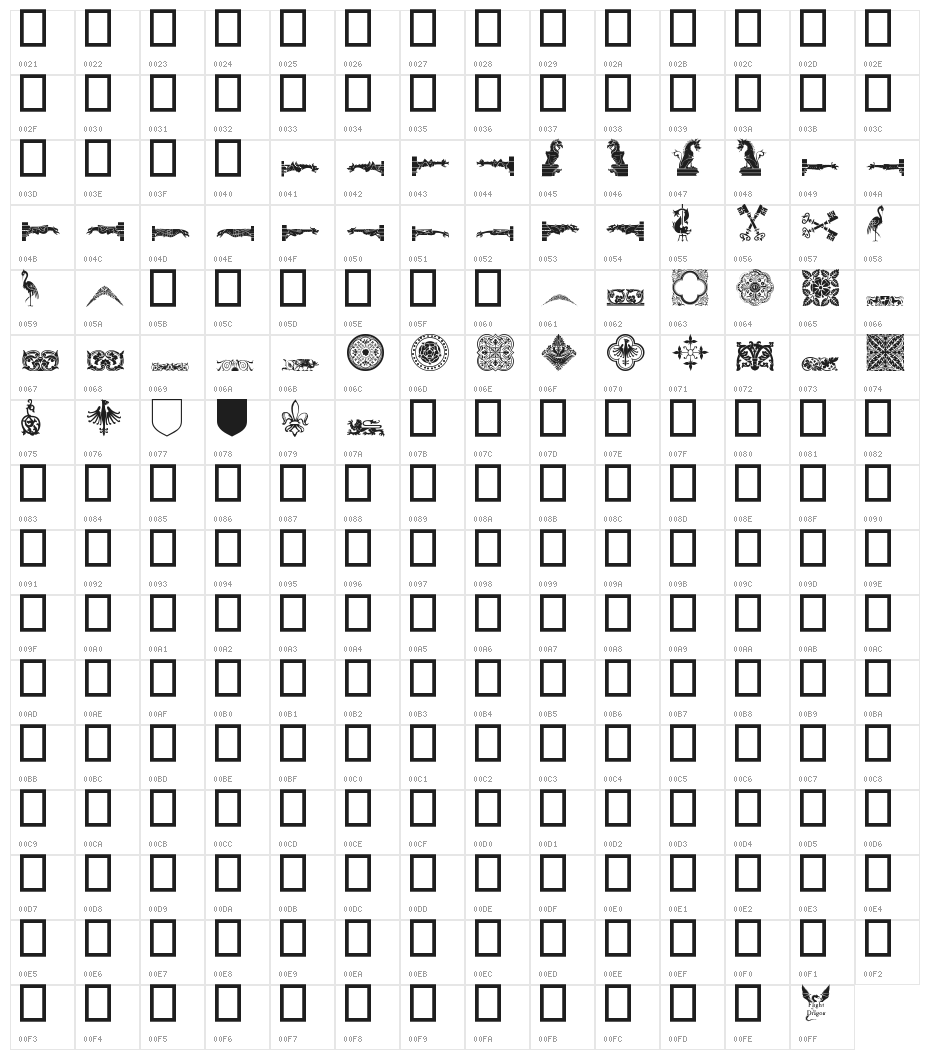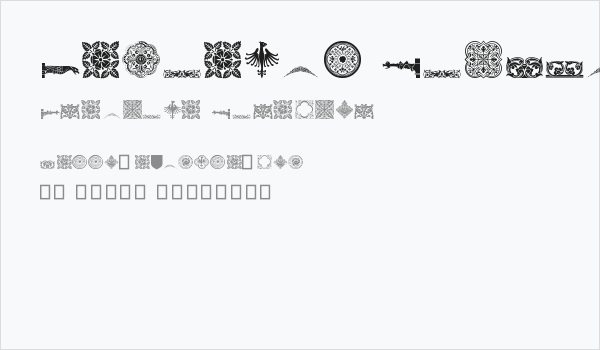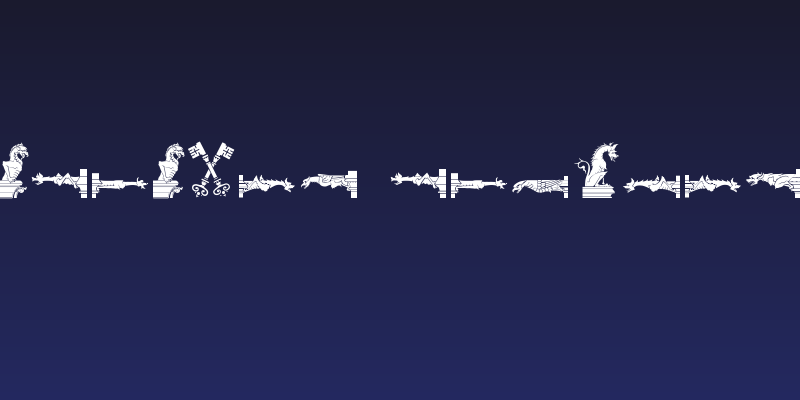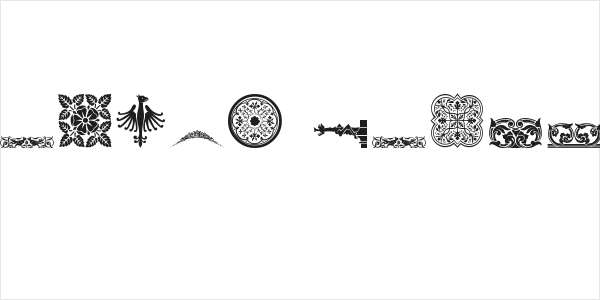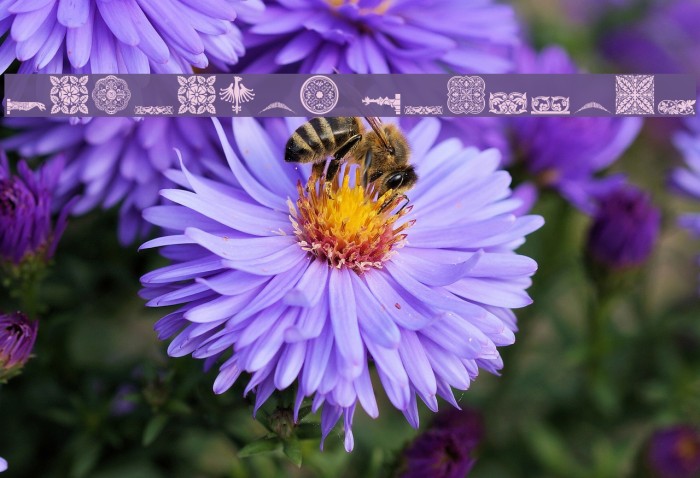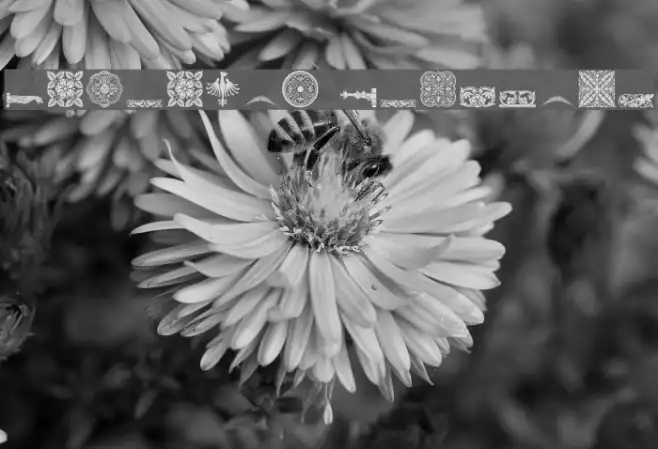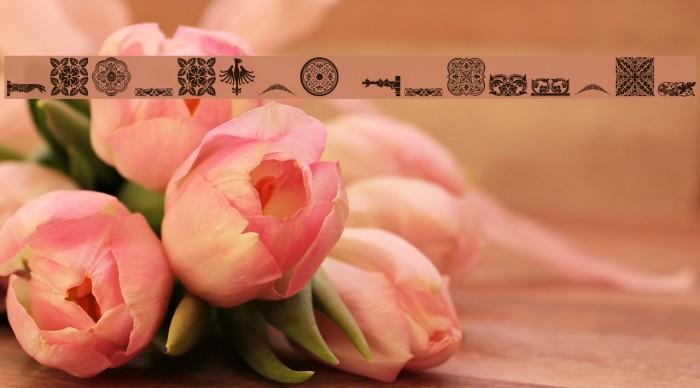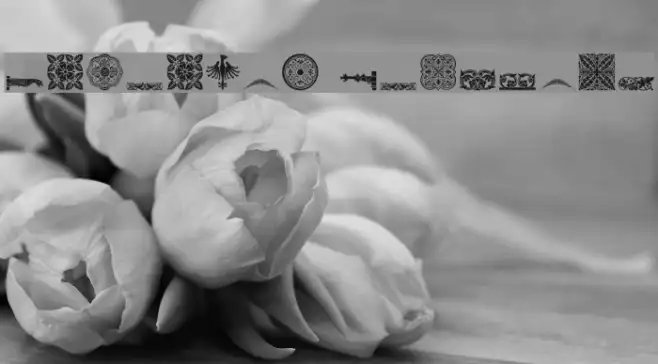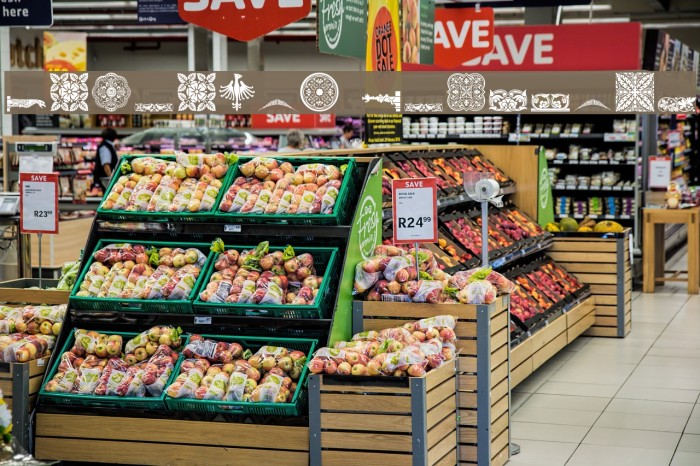
Medieval Dingbats Font
Medieval Dingbats Description
This collection features a series of intricate medieval-themed dingbats, showcasing a variety of ornamental and symbolic designs. The elements include heraldic symbols, mythical creatures, and decorative patterns reminiscent of medieval manuscripts and architecture. Each character is highly detailed, with complex line work and an emphasis on symmetry and balance. The designs evoke a sense of historical grandeur and are perfect for adding a touch of medieval flair to any project. The motifs are versatile, suitable for use in borders, embellishments, or as standalone icons.
| Proposed Projects | Ideal for historical-themed designs, book covers, invitations, and decorative borders. |